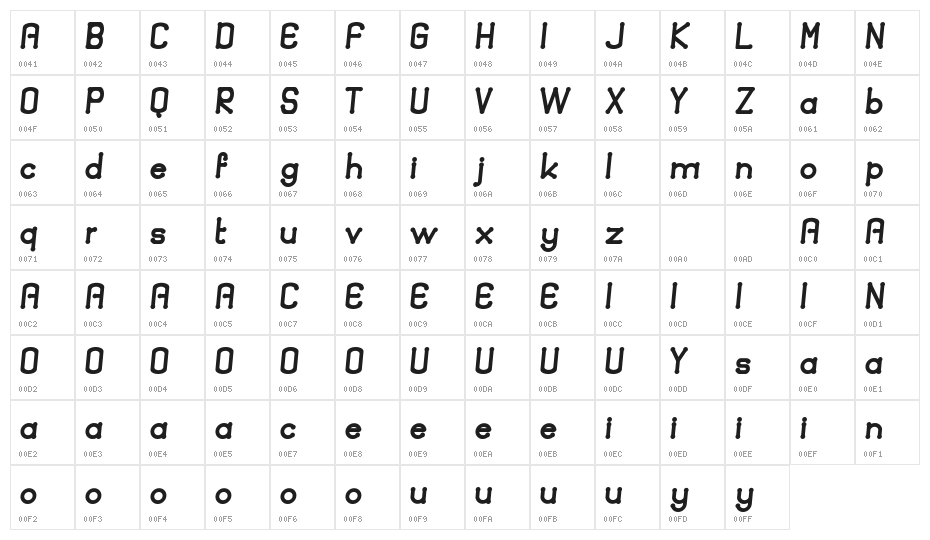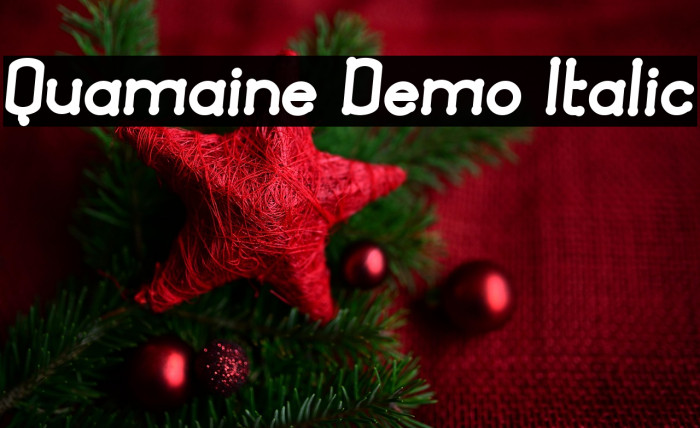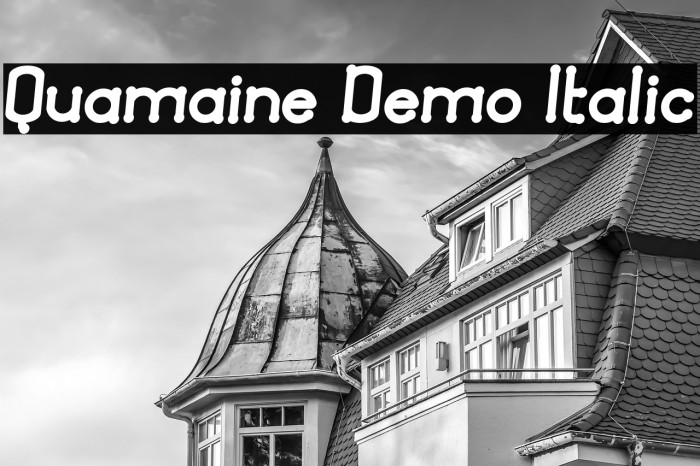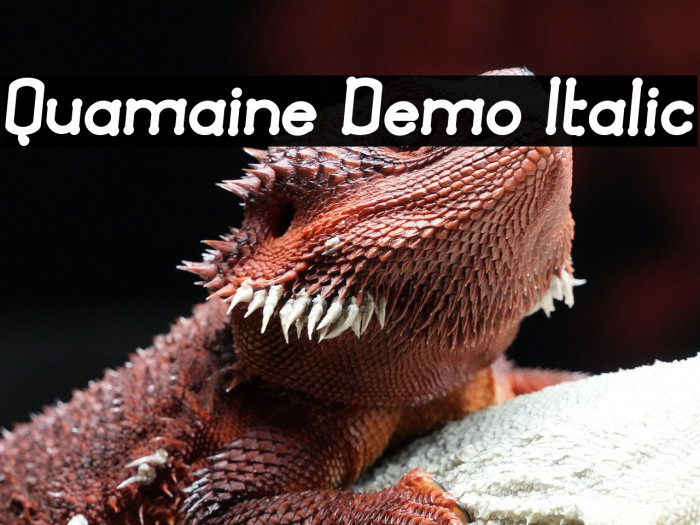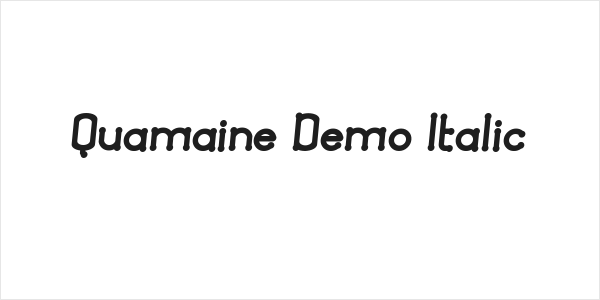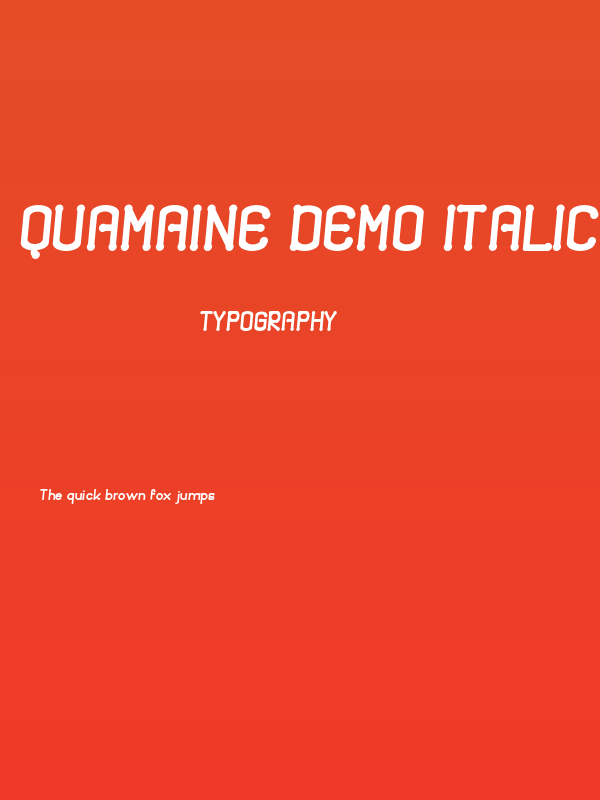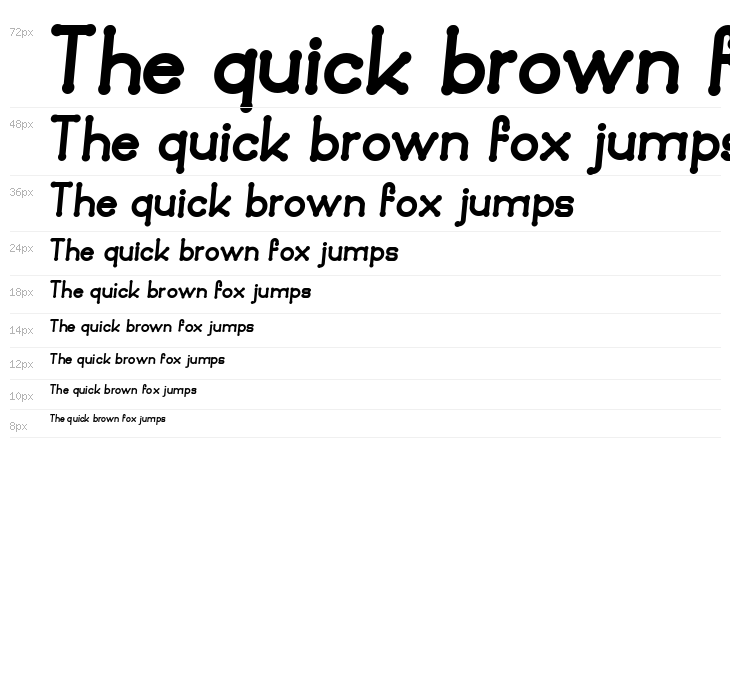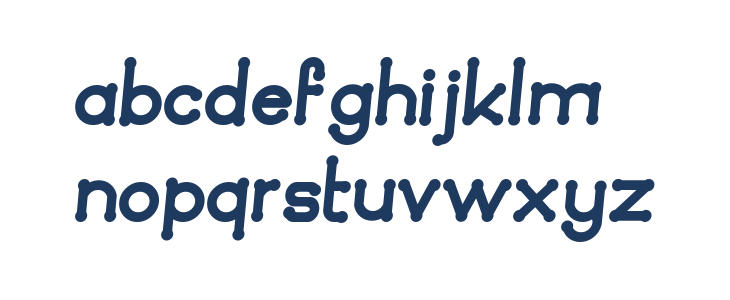
Quamaine Demo Italic Font
Quamaine Demo Italic Description
This font features a playful and rounded design with a casual, handwritten feel. The characters are slightly italicized, adding a dynamic and informal touch. The strokes are consistent in thickness, providing a uniform appearance across all characters. The rounded edges and smooth curves contribute to its friendly and approachable style. This font is versatile, suitable for both uppercase and lowercase letters, and includes numbers and a selection of special characters. Its unique style makes it ideal for projects that require a personal and engaging touch.
| Proposed Projects | Ideal for greeting cards, children's books, playful branding, and casual invitations. |